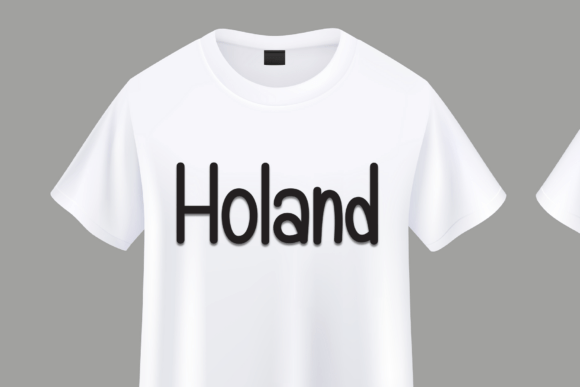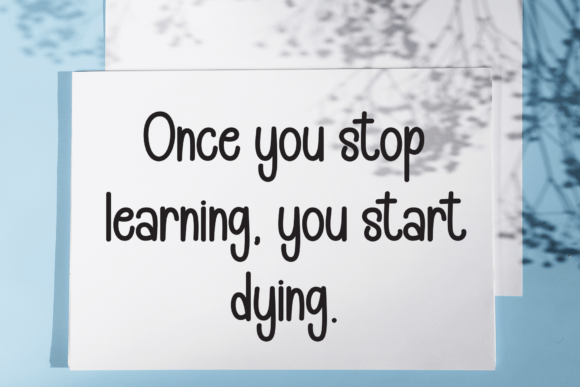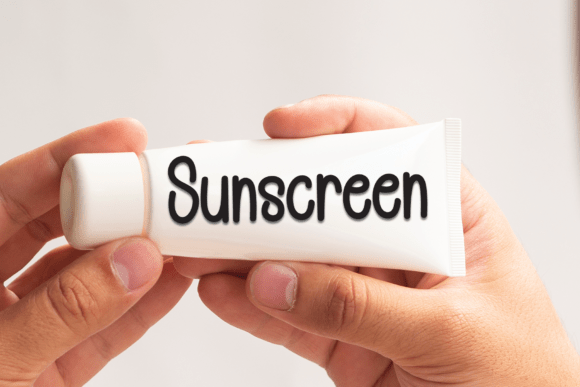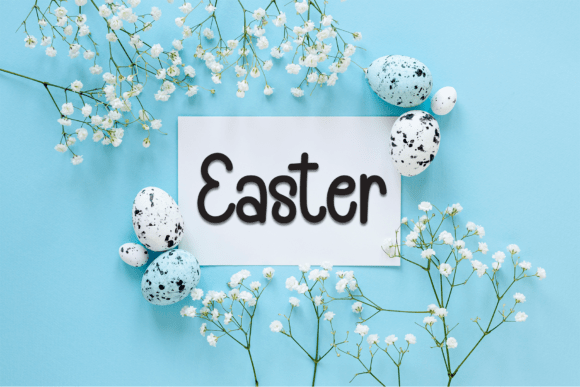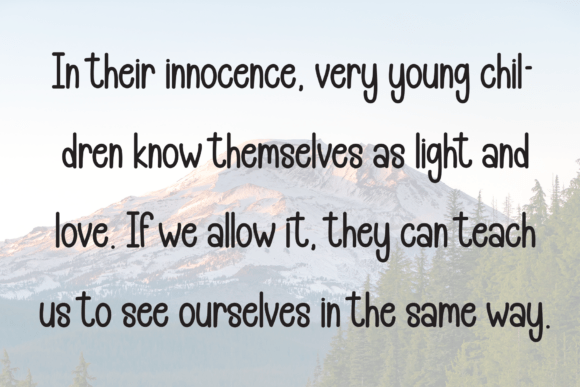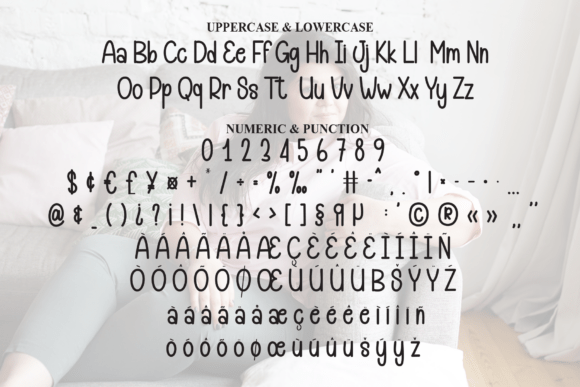
The Ultimate Guide to Chubby Saturday Font: A Designer’s New Best Friend
I’ll never forget the struggle I faced while working on a branding project for a cozy café. My client wanted a font that exuded warmth and friendliness, but I was stuck in a font rut. That’s when I stumbled upon Chubby Saturday, a casual and neat display font that instantly clicked with me. In this article, I’ll share my love for this font, its features, and how you can make the most of it in your designs.
An Honest Review of Chubby Saturday Font
What I Love About Chubby Saturday ✨
- ✅ Clean structure and approachable style, perfect for branding and headlines
- ✅ Balanced letterforms that offer readability and charm
- ✅ Works well for both digital and print designs
- ✅ Easy to read, even at smaller font sizes
- ⚠️ Limited use of special characters and glyphs
- ⚠️ May not work well for very formal or corporate designs
The Story Behind Chubby Saturday Font
Chubby Saturday was designed with warmth and clarity in mind. The designer aimed to create a font that would bring a sense of approachability and friendliness to any project. With its clean structure and balanced letterforms, Chubby Saturday has become a go-to font for designers and crafters alike.
Q: What type of projects is Chubby Saturday best suited for?
A: Chubby Saturday is perfect for branding, headlines, and everyday designs that require a warm and approachable tone.